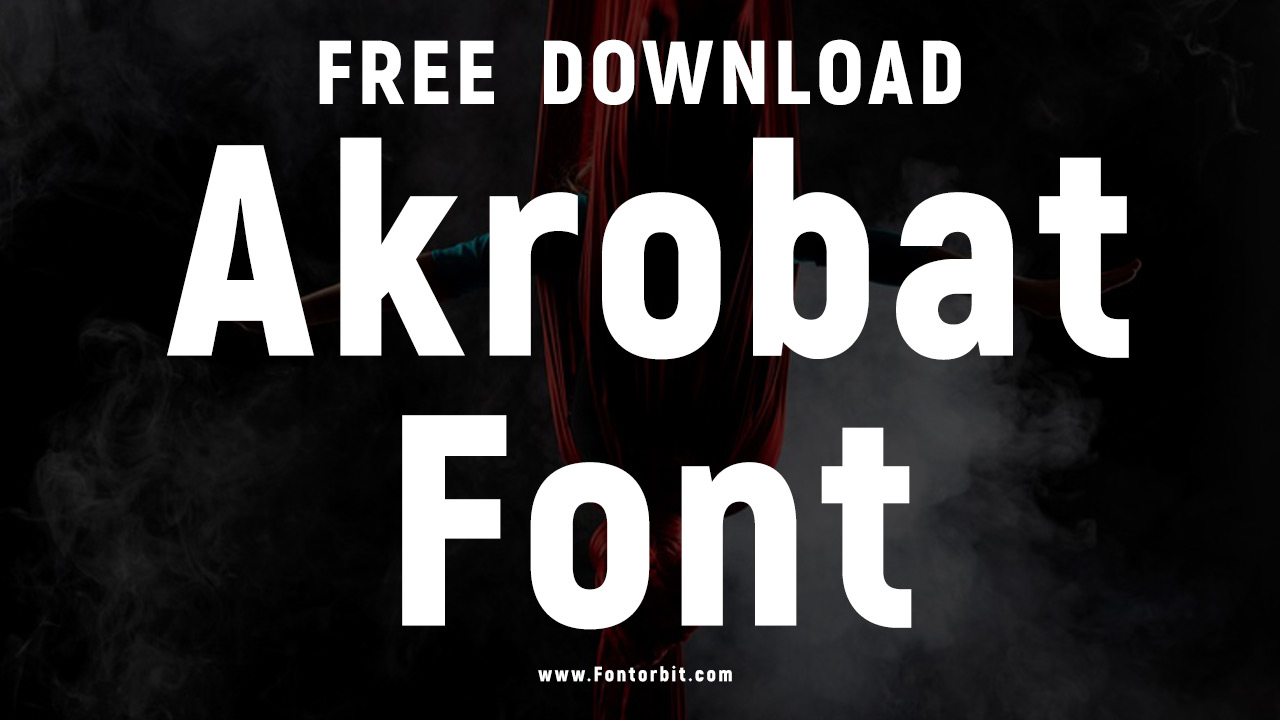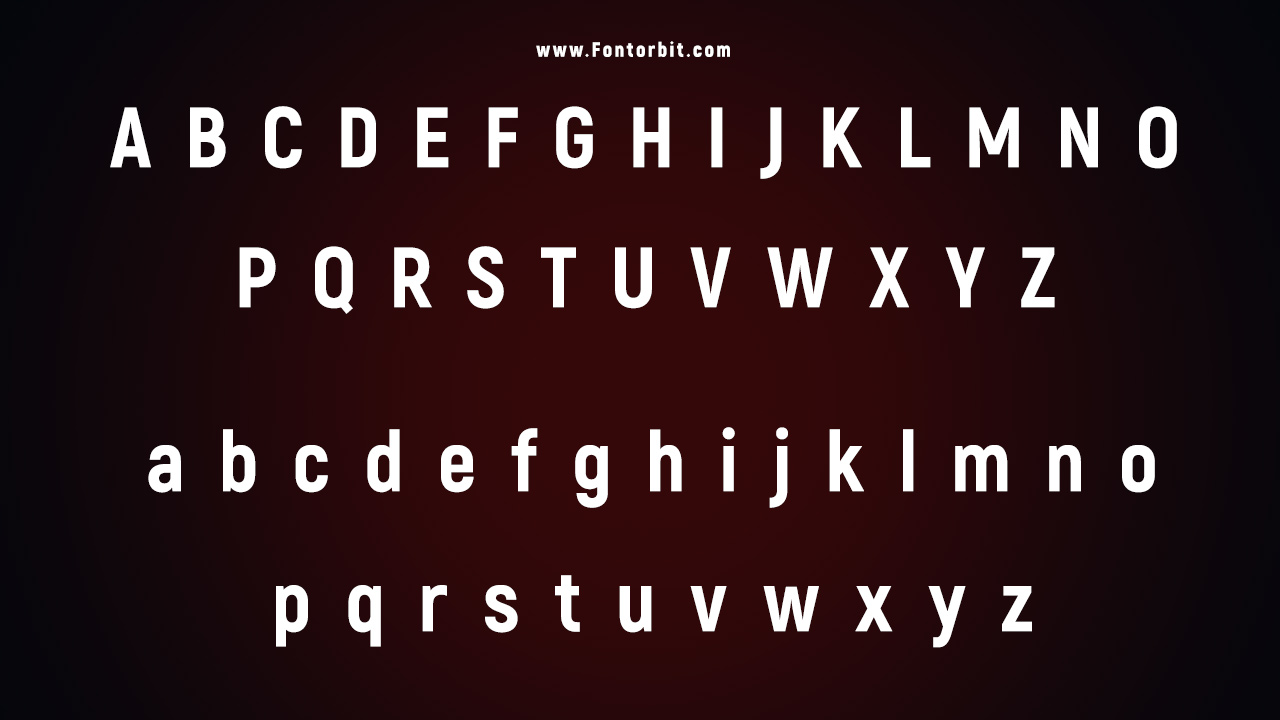
The Akrobat Font is a modern sans-serif typeface characterized by its condensed proportions and geometric aesthetics. Designed with versatility in mind, Akrobat offers a stylish solution for various design applications.
The Akrobat Font offers versatile OpenType features like stylistic alternates, localized forms, tabular figures, and case-sensitive forms for enhanced typography.
Types In The Akrobat Font Family
The Akrobat Font family includes 8 distinct weights, making it suitable for a range of creative projects. This extensive range allows designers to choose the perfect weight for their needs. The styles available are:
- Akrobat Thin
- Akrobat ExtraLight
- Akrobat Light
- Akrobat Regular
- Akrobat Bold
- Akrobat SemiBold
- Akrobat ExtraBold
- Akrobat Black
The Akrobat Font is ideal for a variety of applications due to its modern and clean design. It excels in:
- Titles
- Logo design
- Typographic compositions
- Short paragraphs of text
- Promotional materials
With its narrow proportions and slight neo-grotesque characteristics, the Akrobat Font is frequently used in both print and digital media. It enhances visual communication, making it a popular choice for designers.
The Akrobat Font is a versatile and modern typeface that is perfect for a range of creative projects. Its extensive weight options and character support make it a valuable asset for any designer looking to enhance their work with a sleek and professional aesthetic.
1.What Are The Characteristics Of Akrobat Font?
Akrobat Font is a modern sans-serif typeface with condensed proportions, geometric aesthetics, and a slight neo-grotesque feel.
2.What Are The Recommended Uses For Akrobat Font?
It is suitable for headlines, logos, typographic compositions, and short paragraphs of text, making it a versatile choice for various design applications.
3.What Languages Does Akrobat Font Support?
The font supports extended Latin, Cyrillic characters, and includes Bulgarian localization features, accommodating a wide range of languages.
4.What Opentype Features Does Akrobat Font Offer?
Akrobat Font includes stylistic alternates, localized forms, tabular figures, and case-sensitive forms, enhancing its usability for diverse design needs.
7.What Makes Akrobat Font Unique?
Its combination of modern design, narrow proportions, and extensive character support makes Akrobat Font stand out as a versatile typeface for both print and digital use.